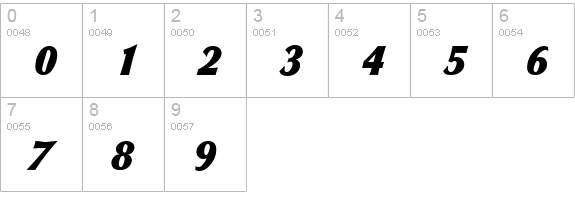
ColumbiaSerial-Heavy-Italic Font Details
ColumbiaSerial-Heavy-Italic is a heavy, high-impact, italic variant in the ColumbiaSerial typeface family \xE2\x80\x94 well suited to high-impact headlines, posters, and display advertising.
ColumbiaSerial-Heavy-Italic is a bold and dynamic font that exudes a sense of power and sophistication. Its unique italic style adds a touch of elegance to any design, making it perfect for headlines, logos, and branding materials. The heavy weight of the font commands attention and makes a strong visual impact. What's even better is that ColumbiaSerial-Heavy-Italic is available for free download at FontsMarket.com. This means you can easily access this impressive font and use it in your projects without any cost. Don't miss out on the opportunity to enhance your designs with the striking beauty of ColumbiaSerial-Heavy-Italic font, now just a download away!